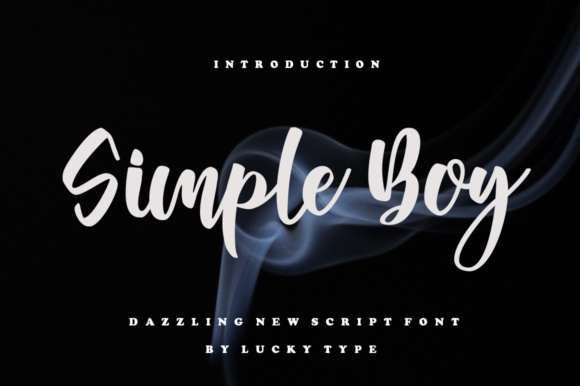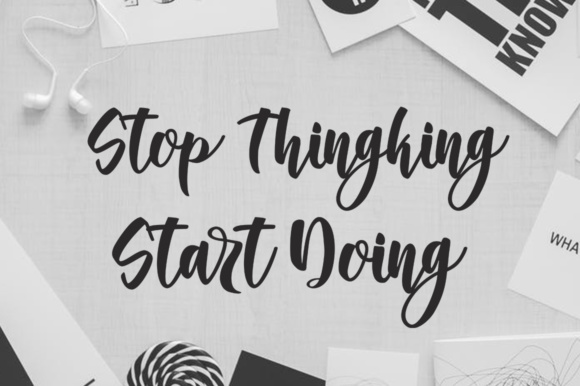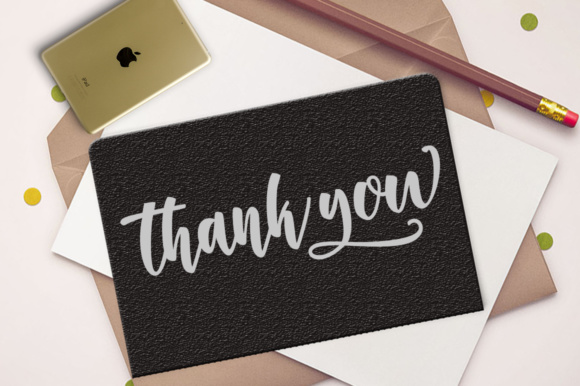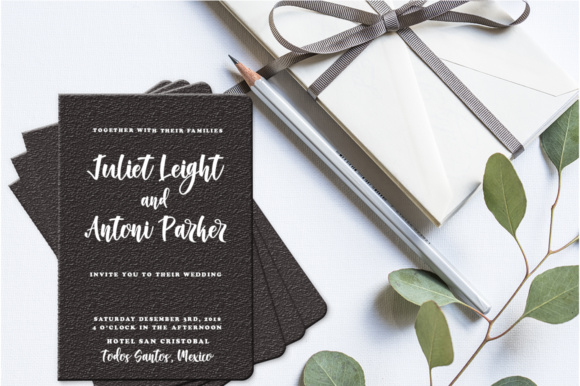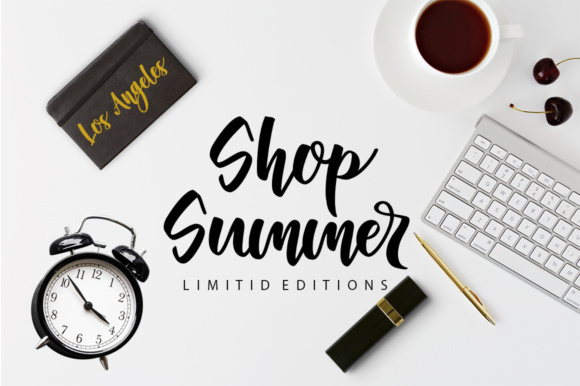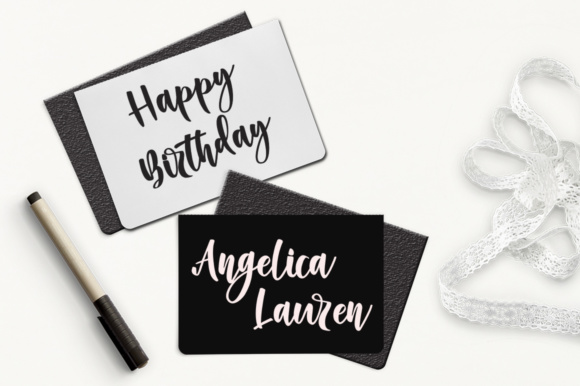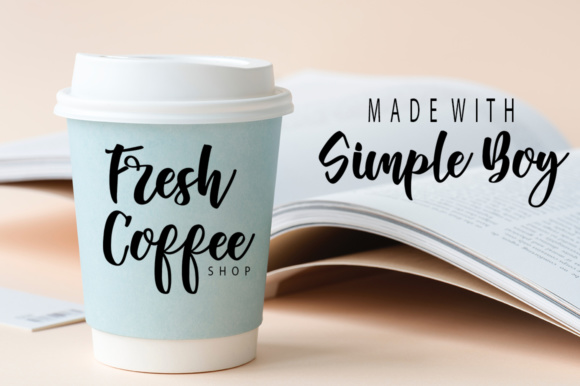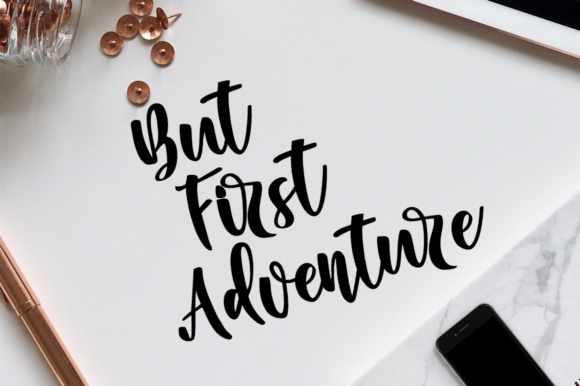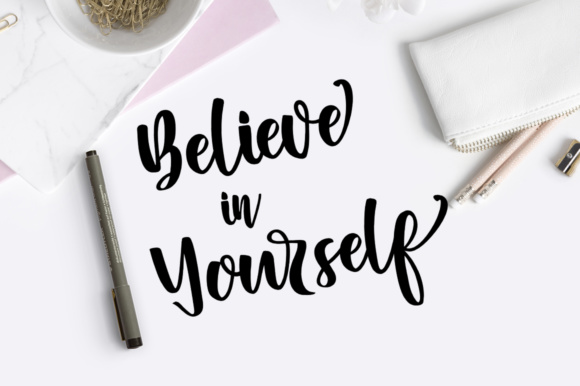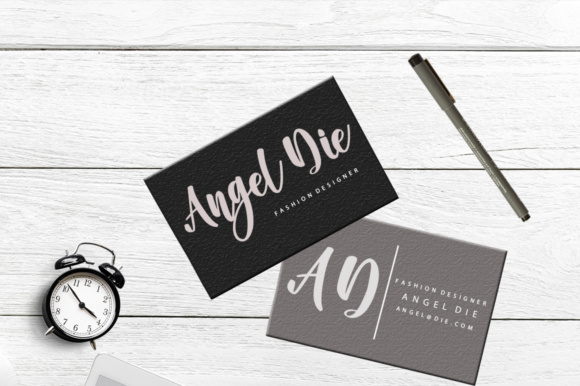
Simple Boy Font
About Simple Boy Font
The Simple Boy is a new, modern script font with an irregular baseline and a trendy and feminine style. It looks lovely on wedding invitations, thank you cards, quotes, greeting cards, logos, business cards and more. Perfect for using in ink or watercolor.